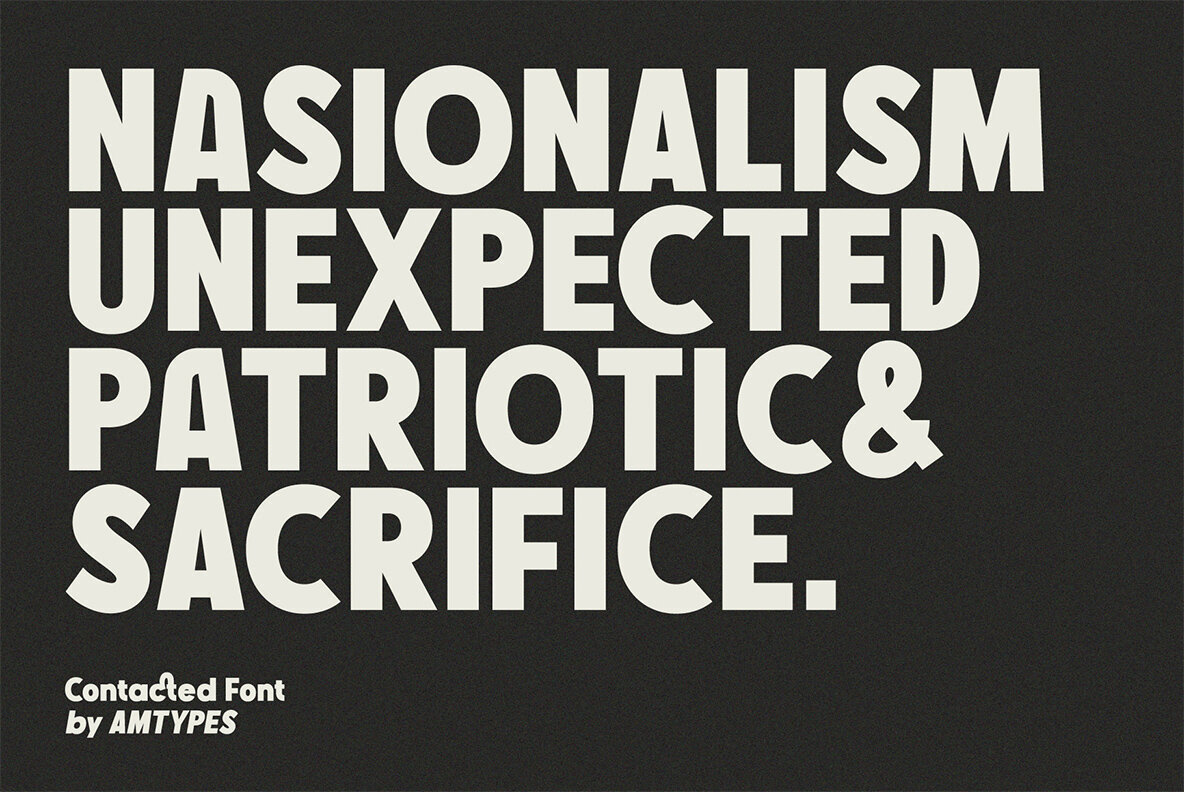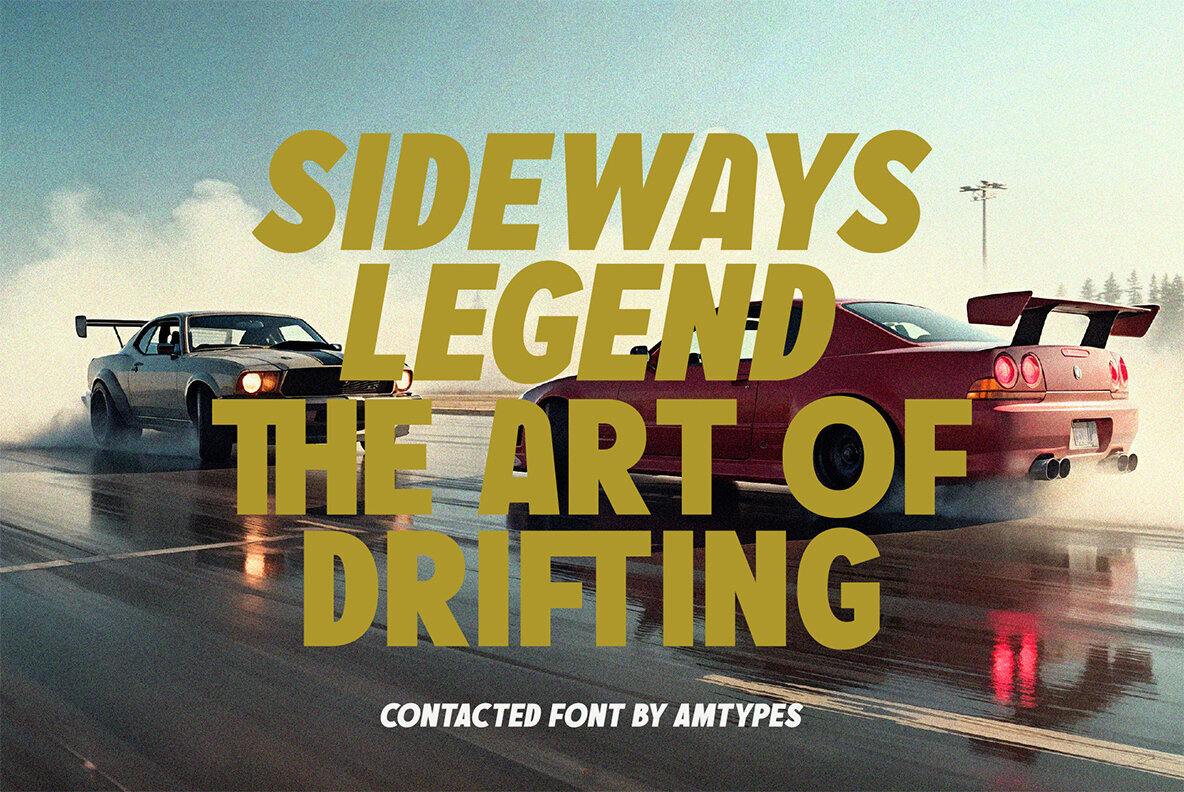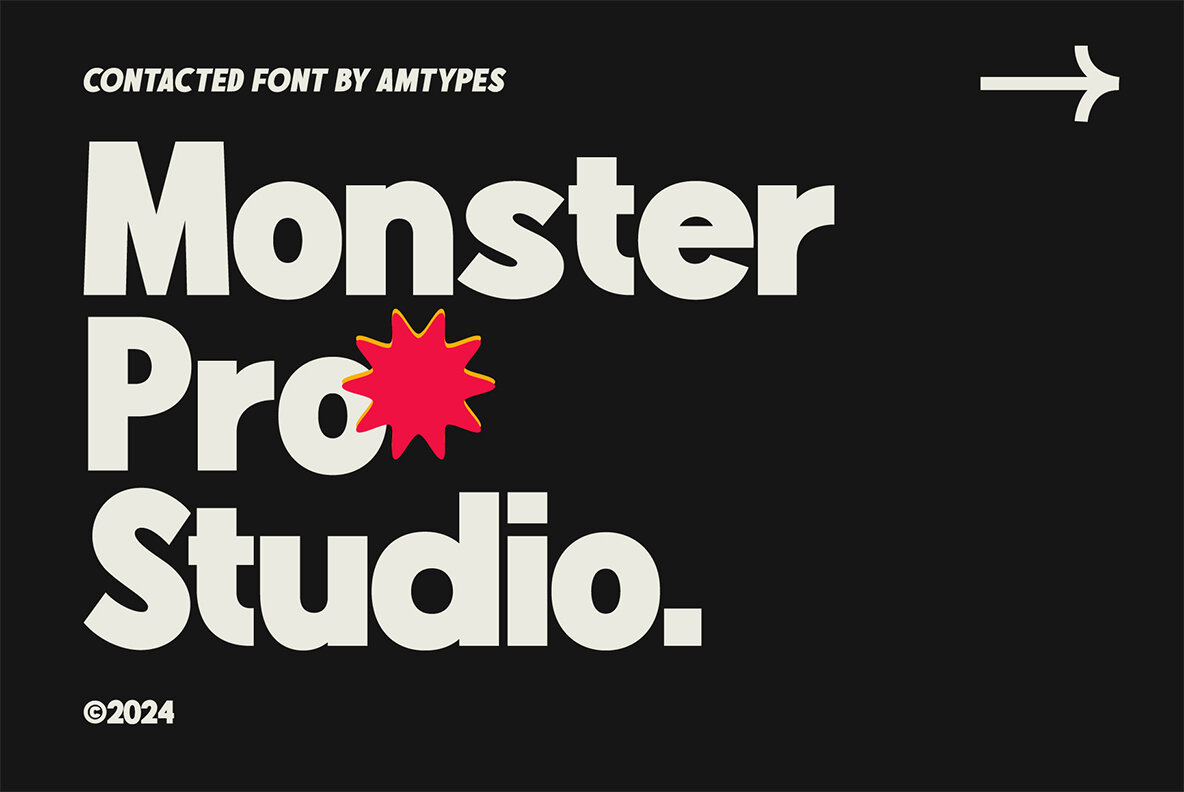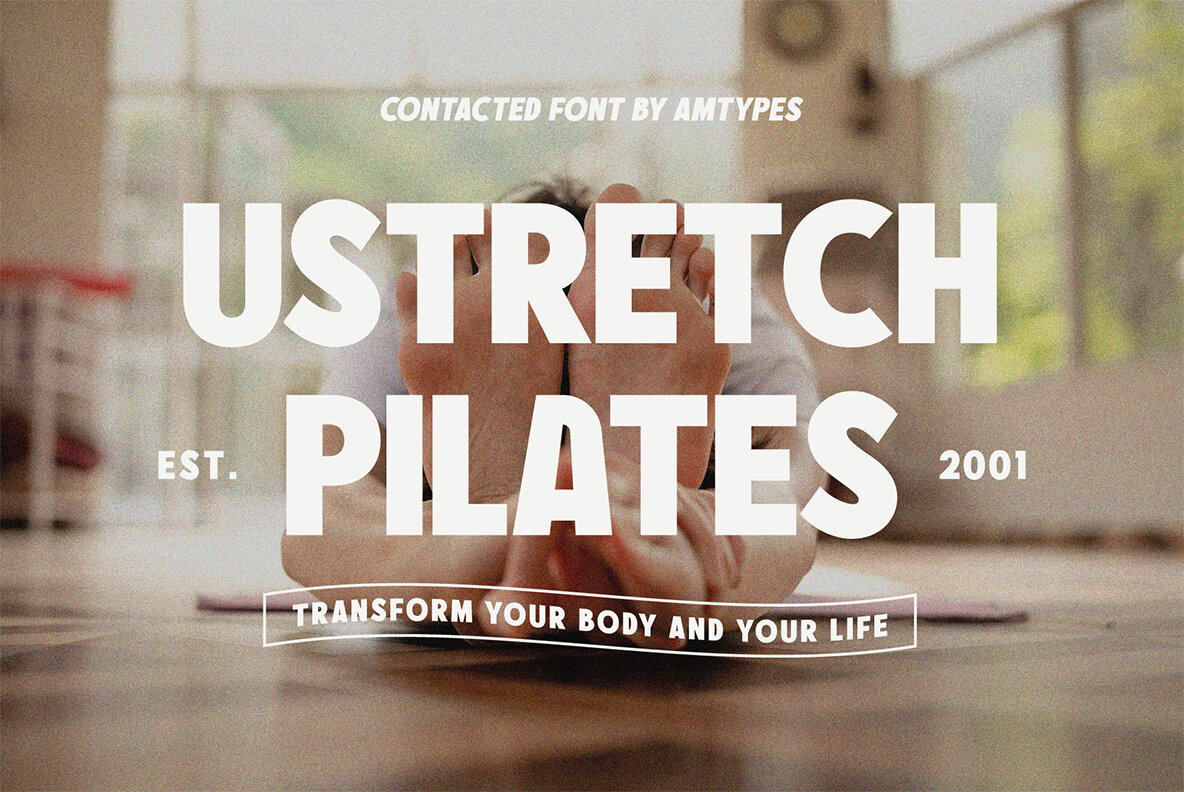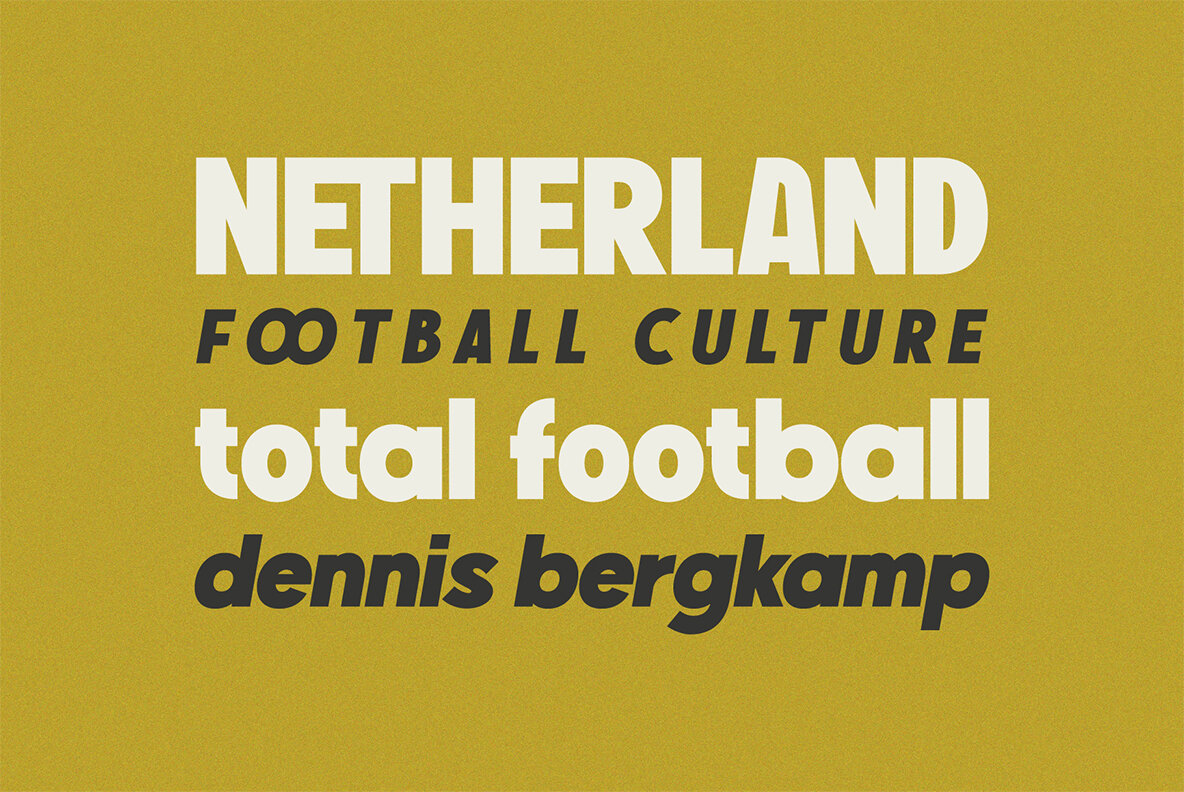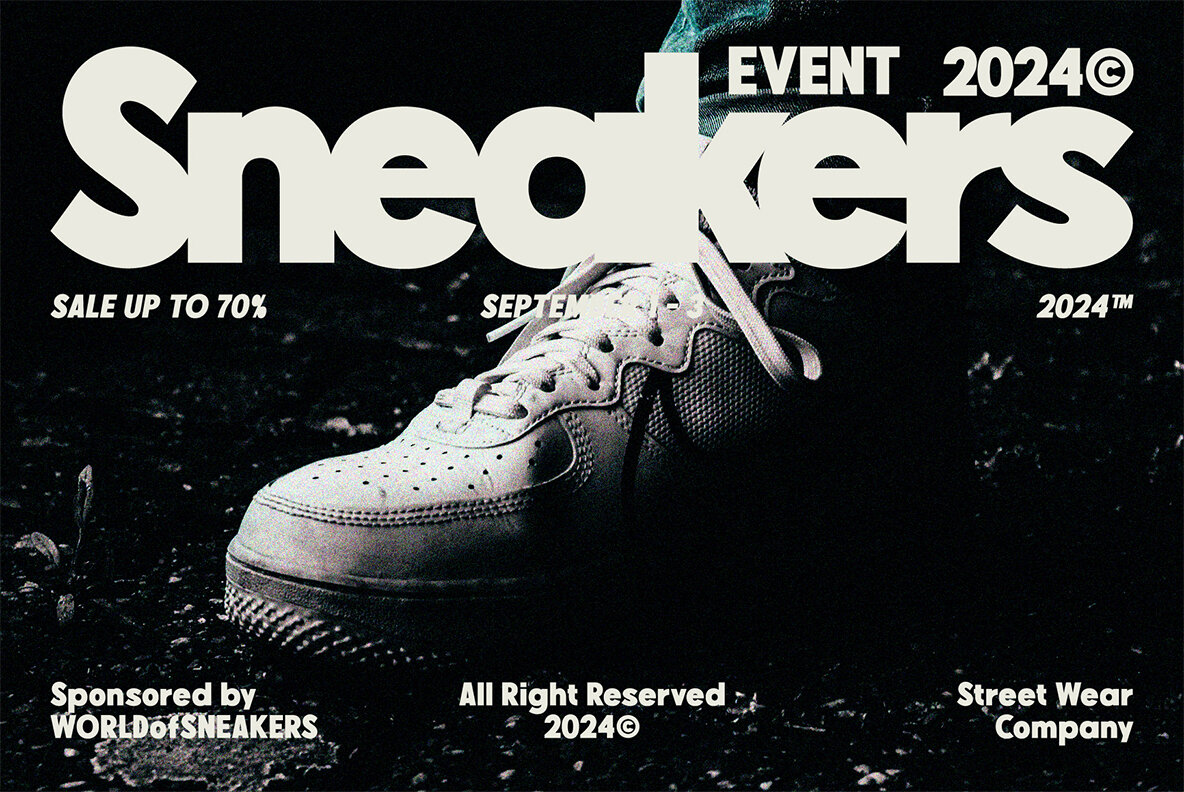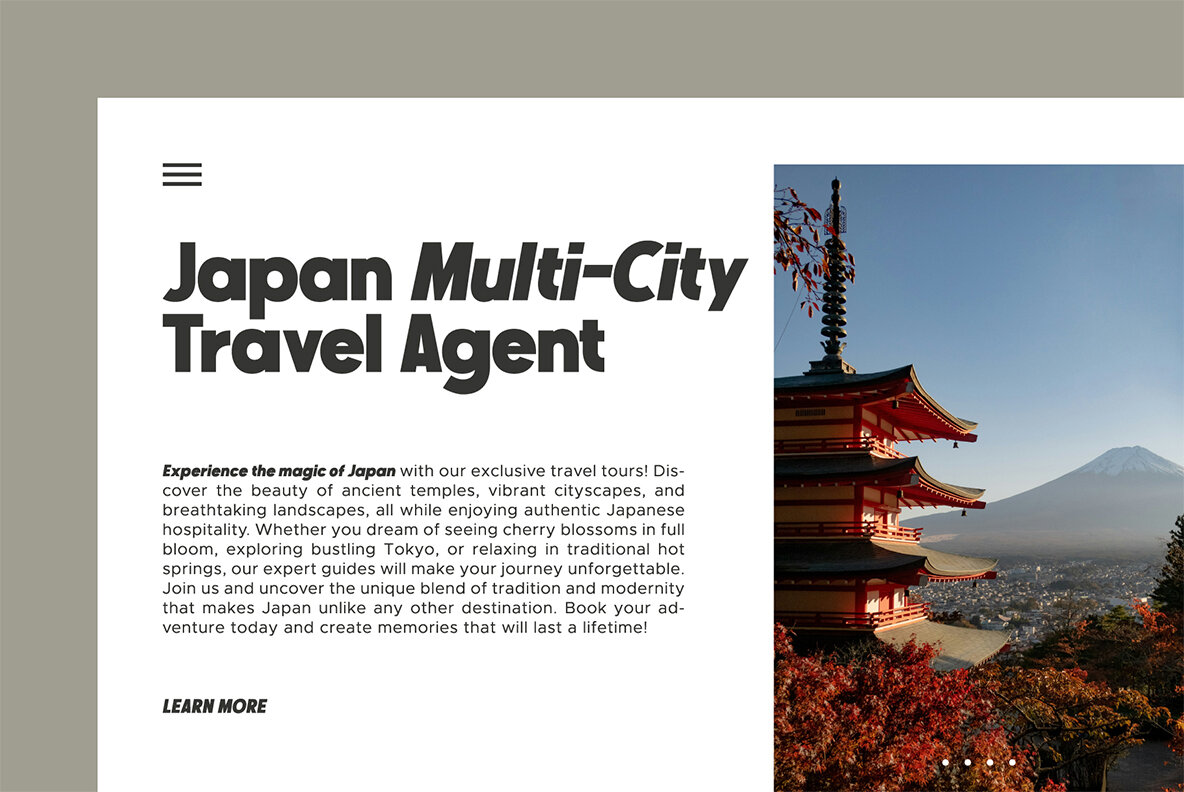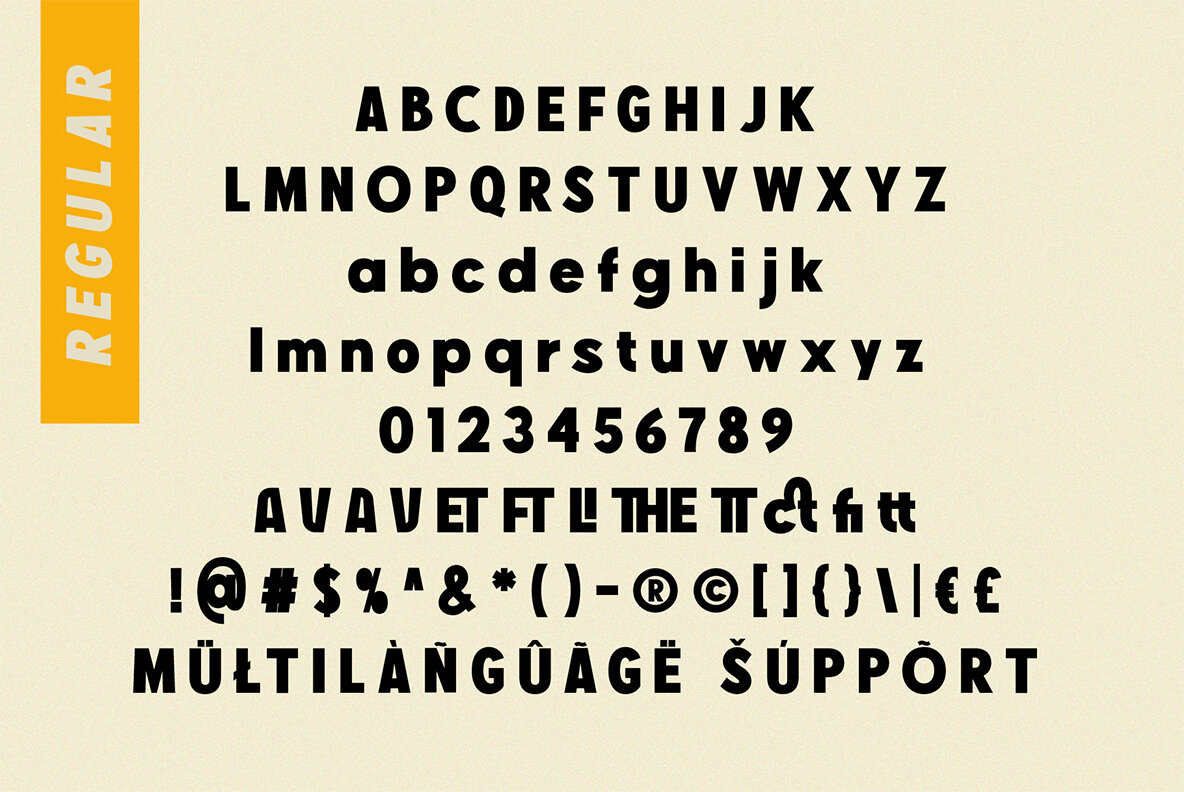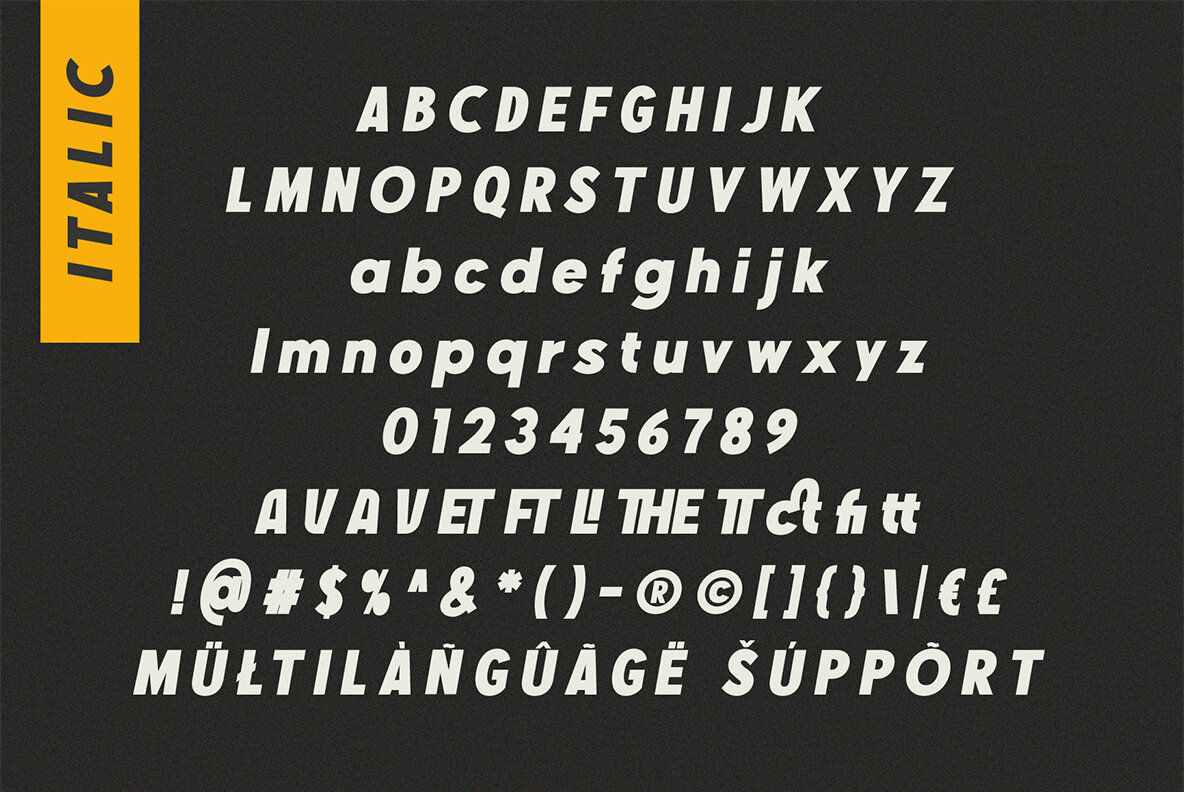
AM Contacted Font
Contacted Font is a bold sans-serif typeface with a geometric structure, designed to exude strength, clarity, and patriotism. Its bold appearance makes it perfect for impactful graphic designs such as posters, slogans, or advertising where a commanding visual presence is essential. The font's minimalist and modern qualities also make it versatile for various creative projects. File Include: